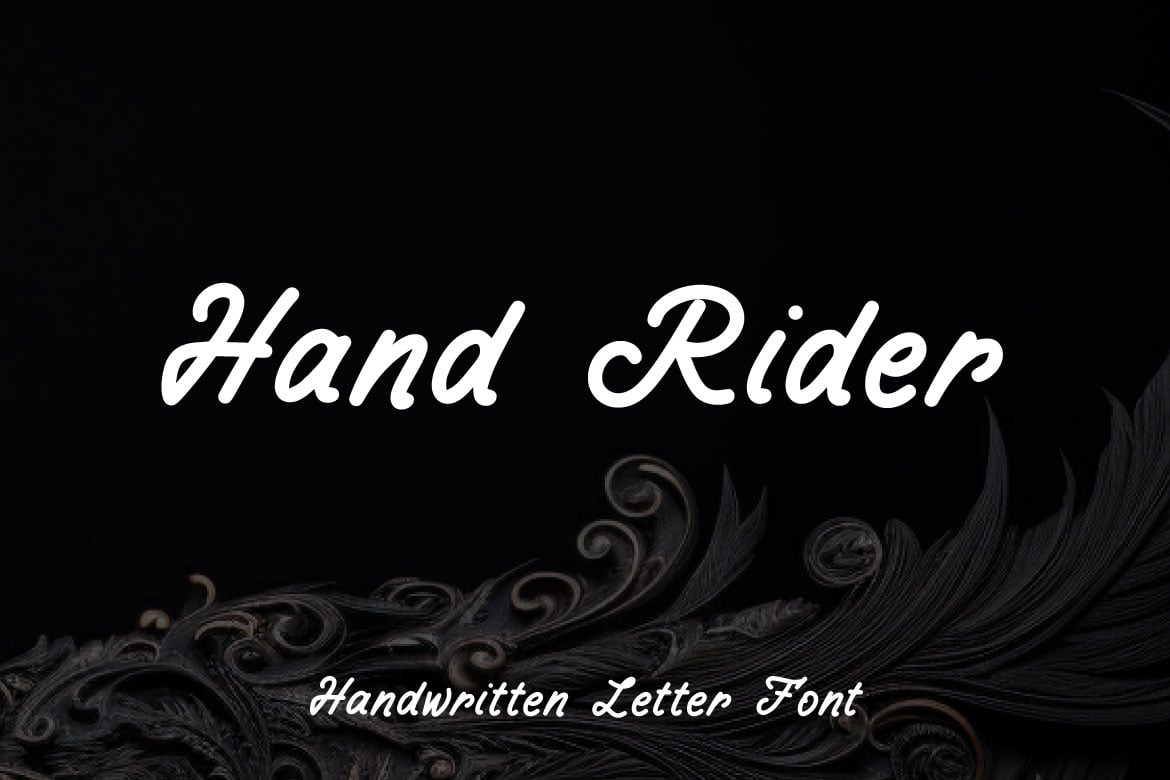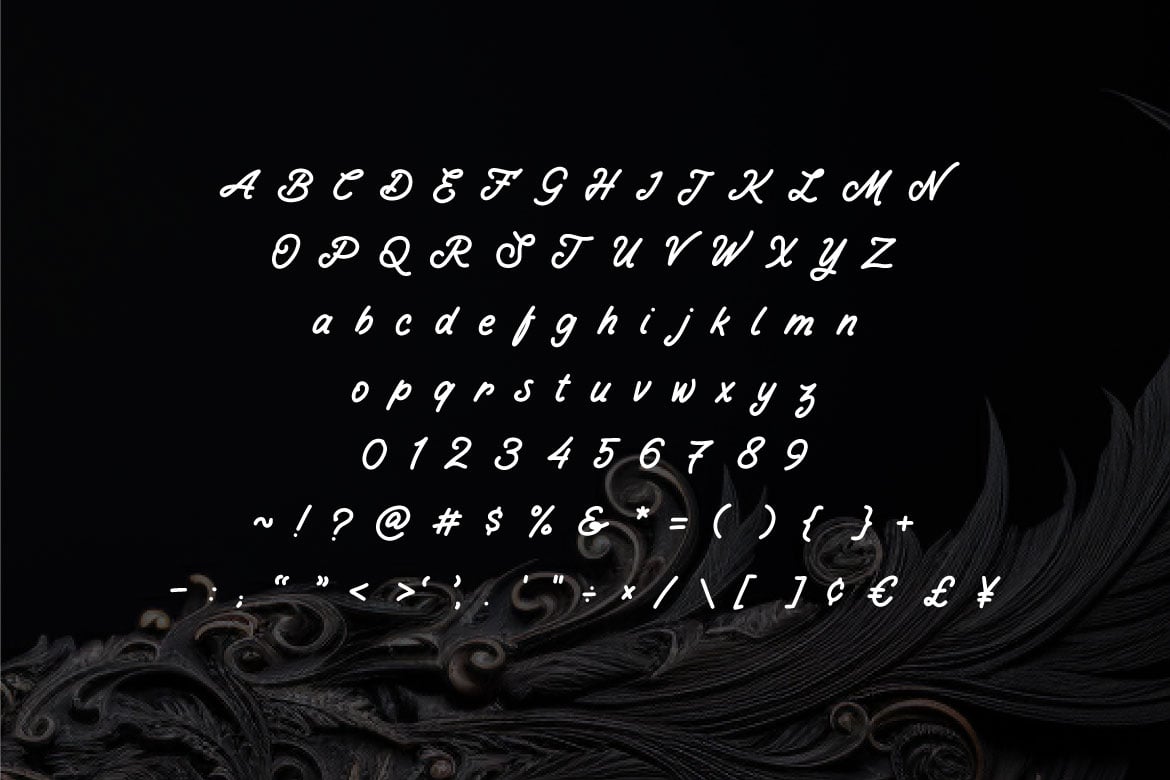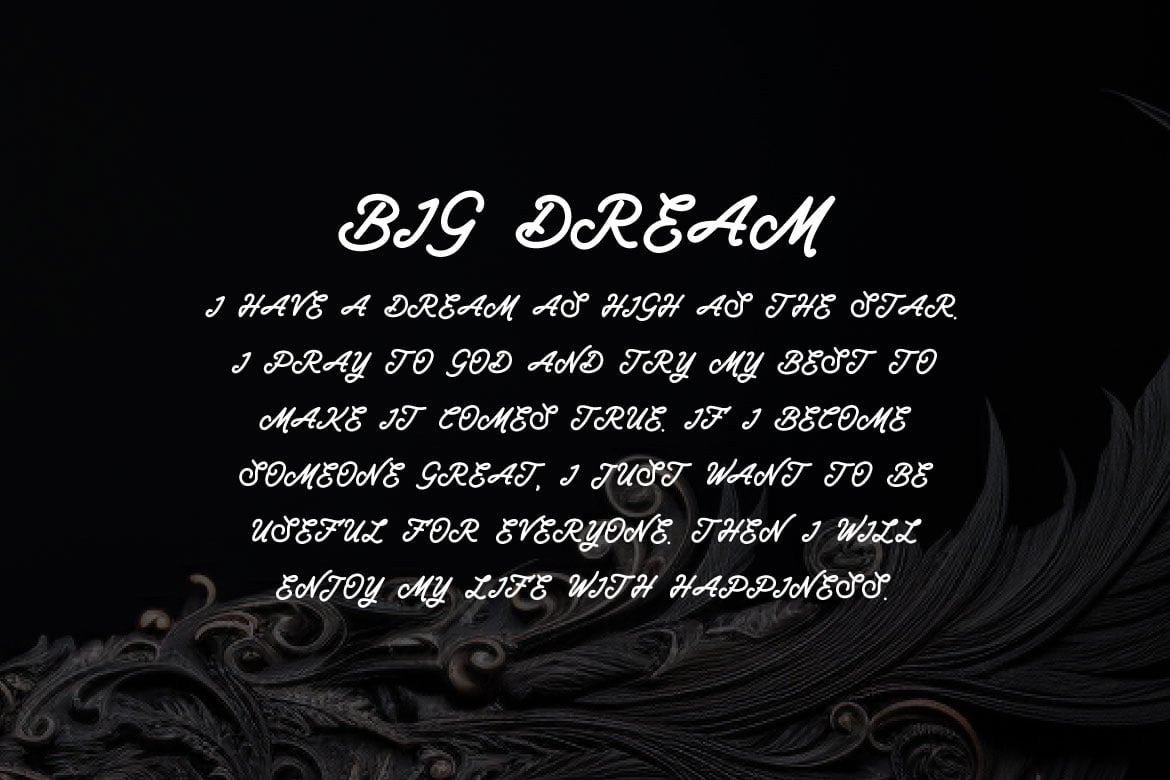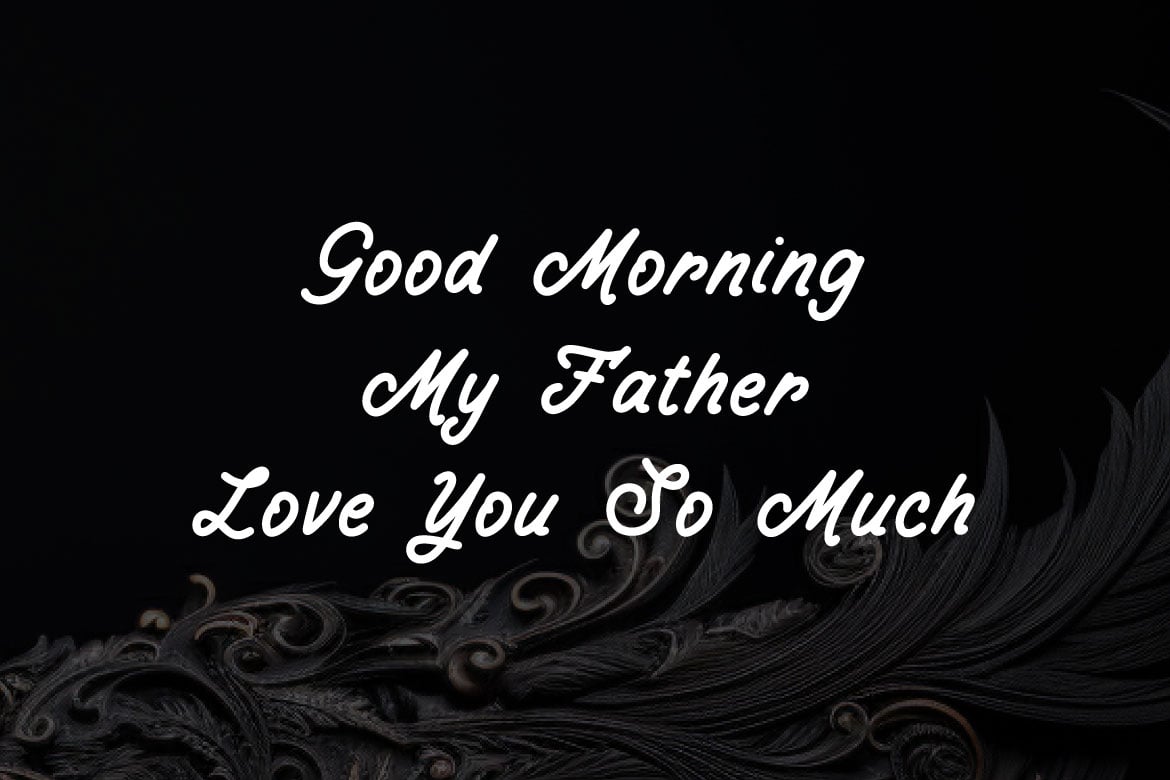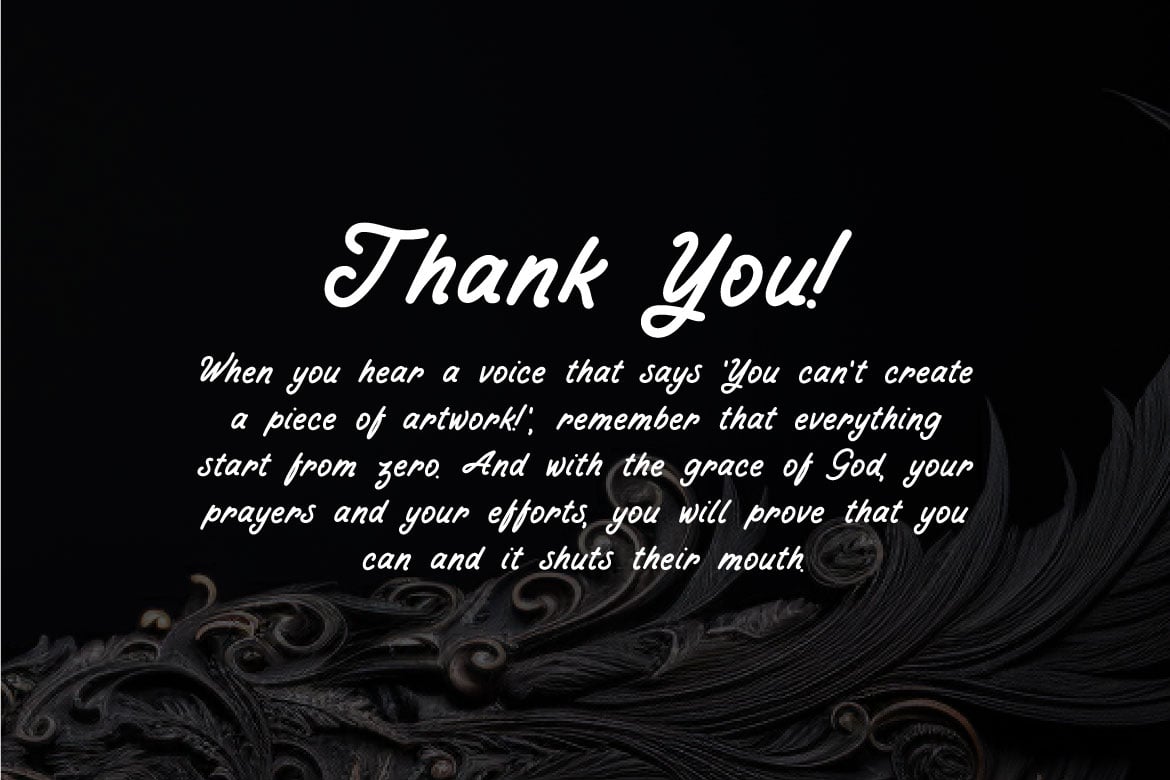
Hand Rider – Handwritten Letter Font
Immerse your projects in the charm of our Hand Rider a meticulously crafted typeface that effortlessly combines the warmth of hand-lettering with a touch of contemporary flair. Each character is a testament to the artistry of the human hand, bringing a personal touch to your designs that resonates with authenticity and creativity.
This handwritten font captures the essence of timeless elegance, making it the perfect choice for a wide range of applications. Whether you’re designing invitations, greeting cards, branding materials, or adding a personal touch to your digital creations, Hand Rider lends a unique and inviting character to your text.